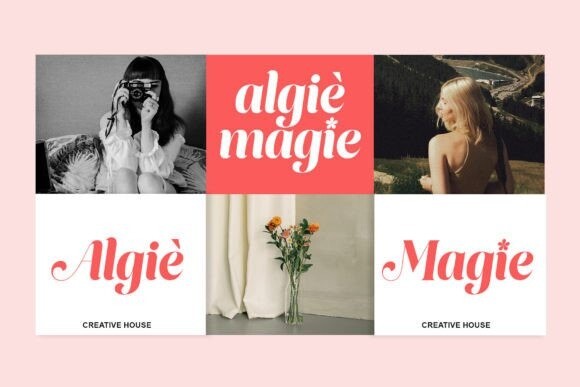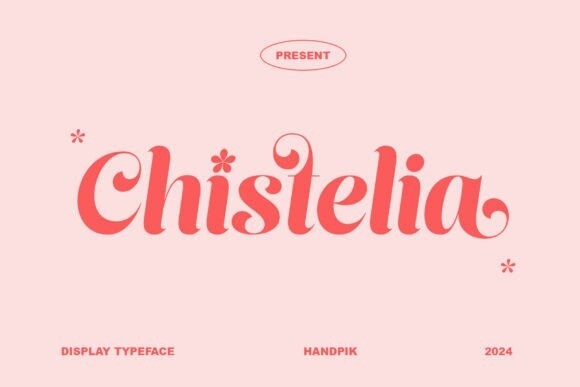
Chistelia Font
Designer: handpik
Chistelia Font is an exquisite handwritten script font that radiates elegance and style. Its flowing strokes and graceful curves evoke a sense of sophistication, making it ideal for upscale designs, branding, and wedding invitations. With its refined aesthetic and timeless appeal, Chistelia brings a touch of luxury to any project.